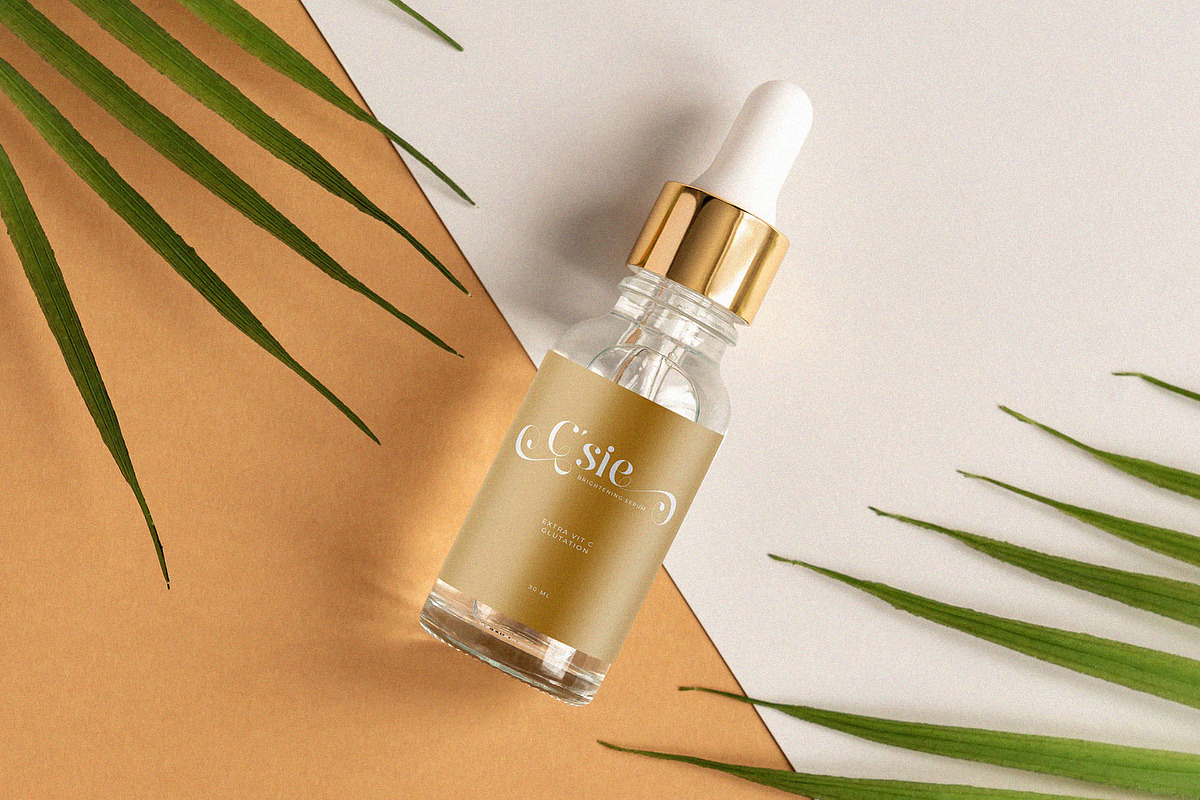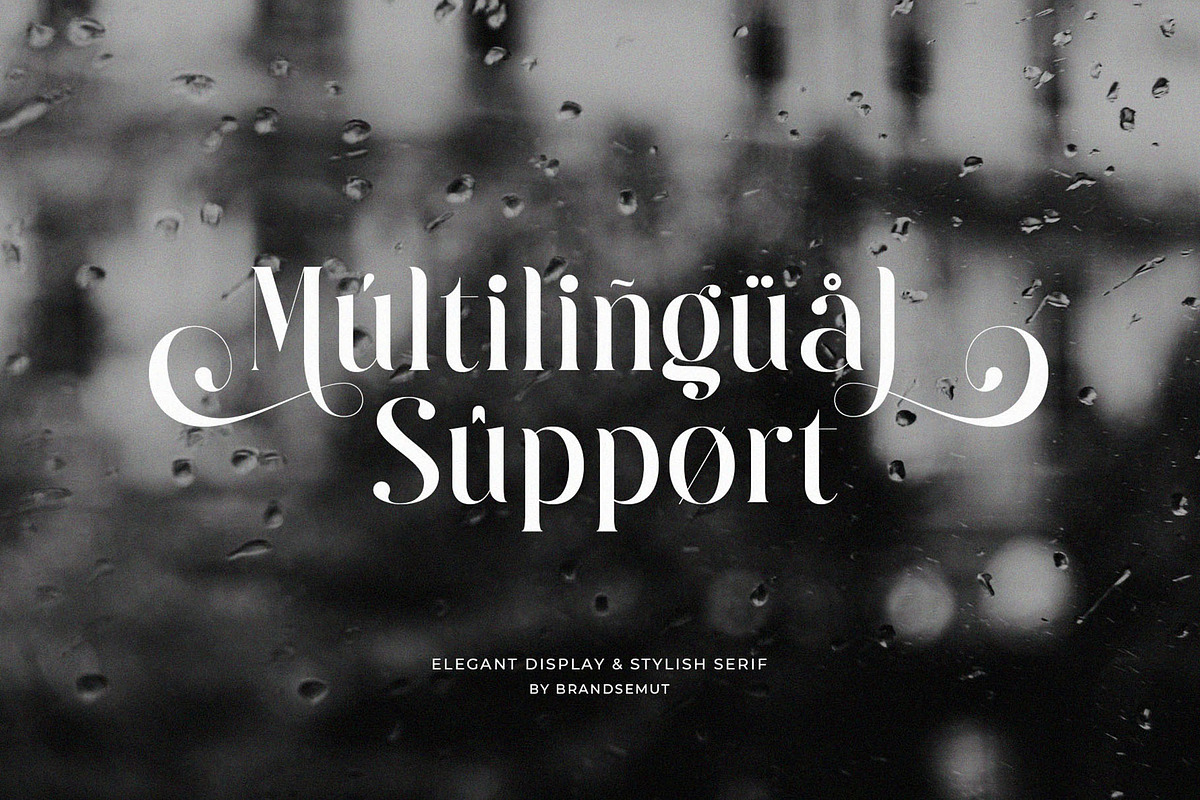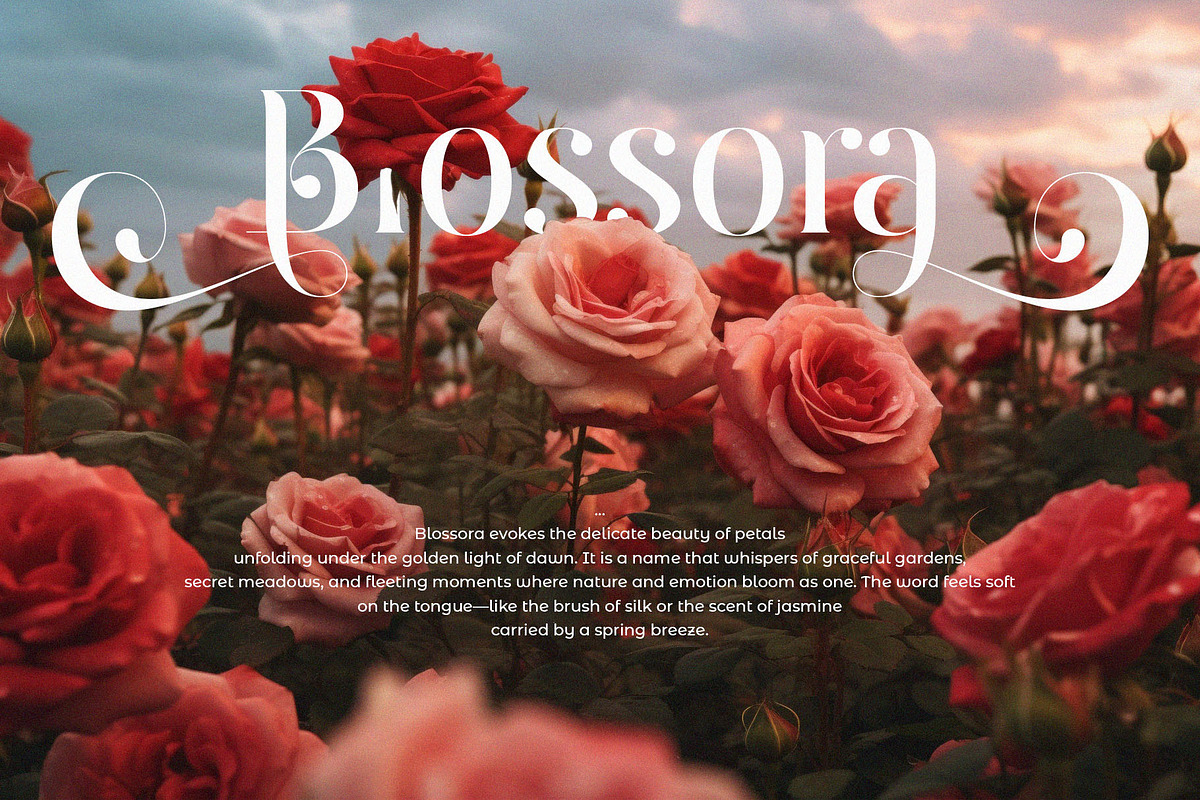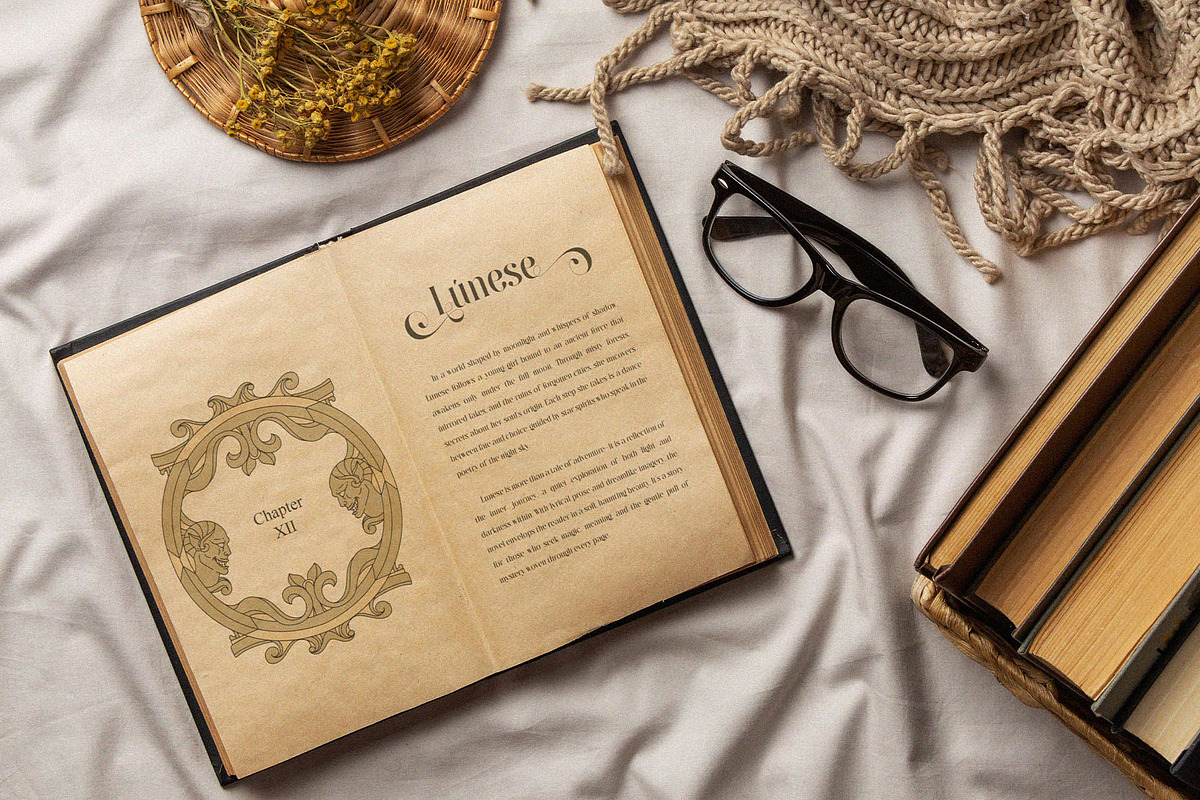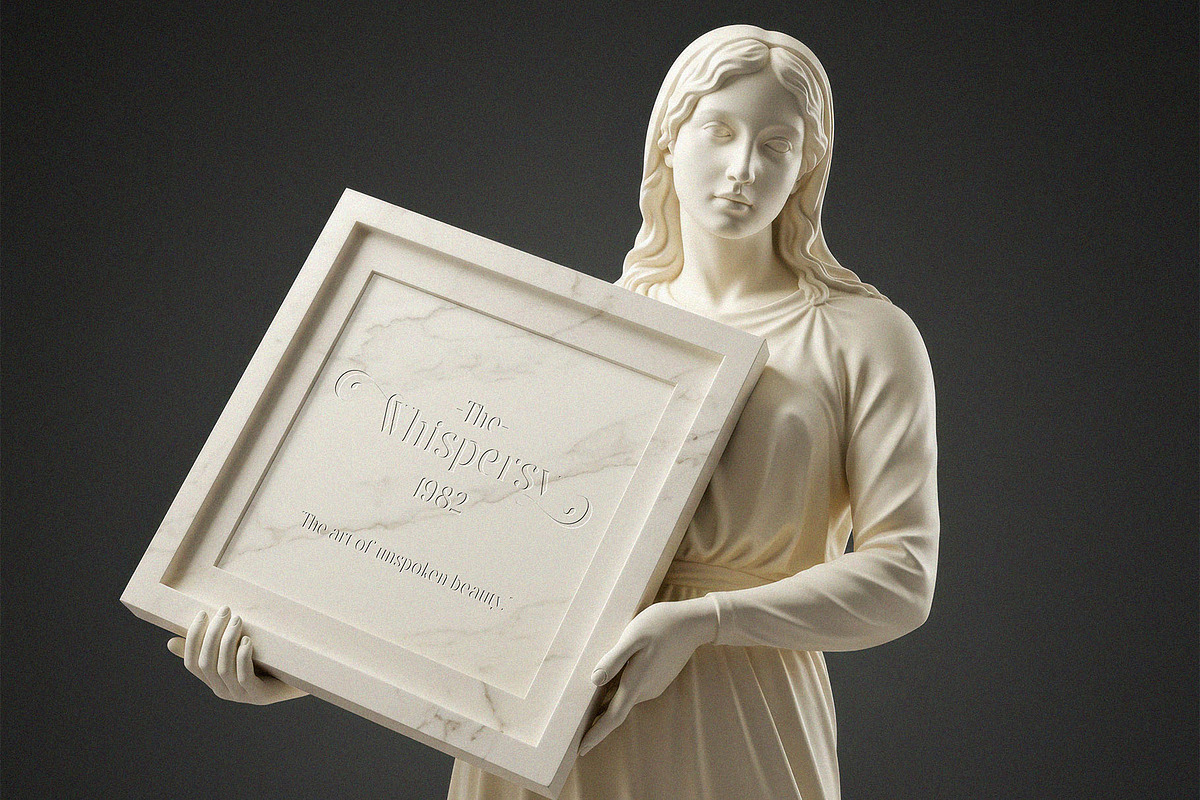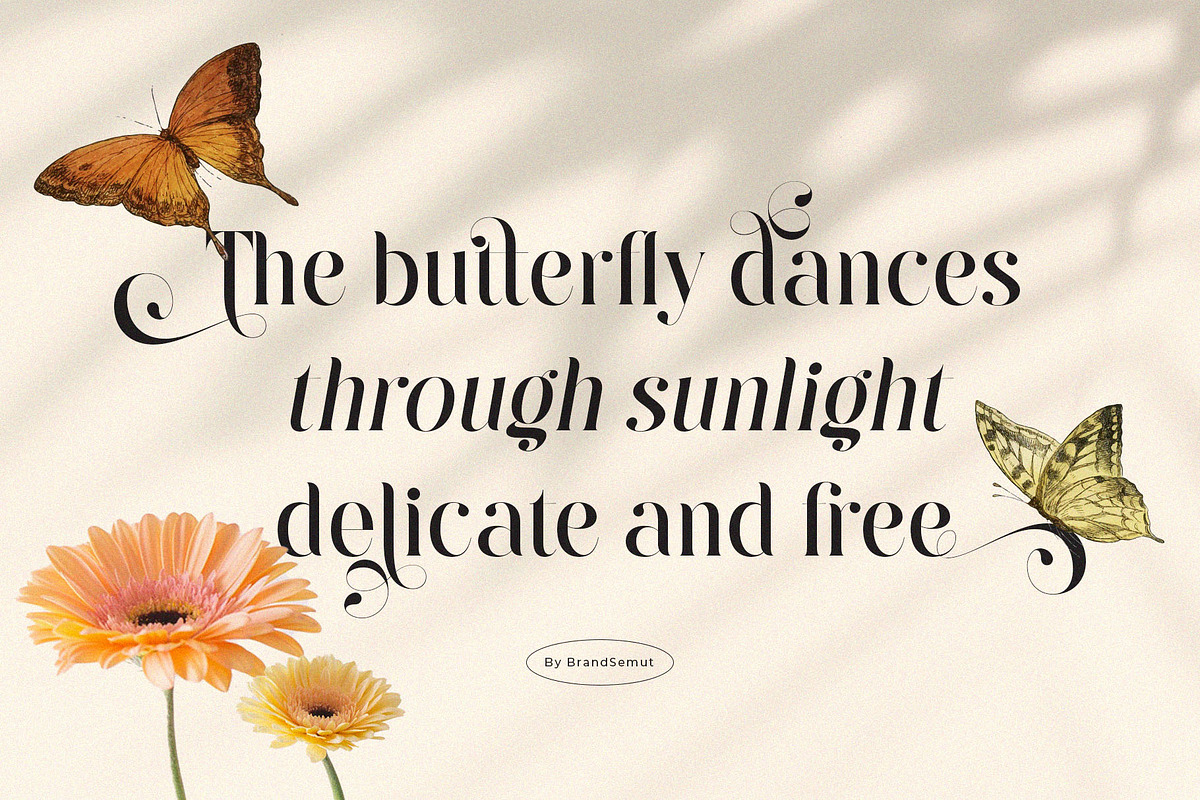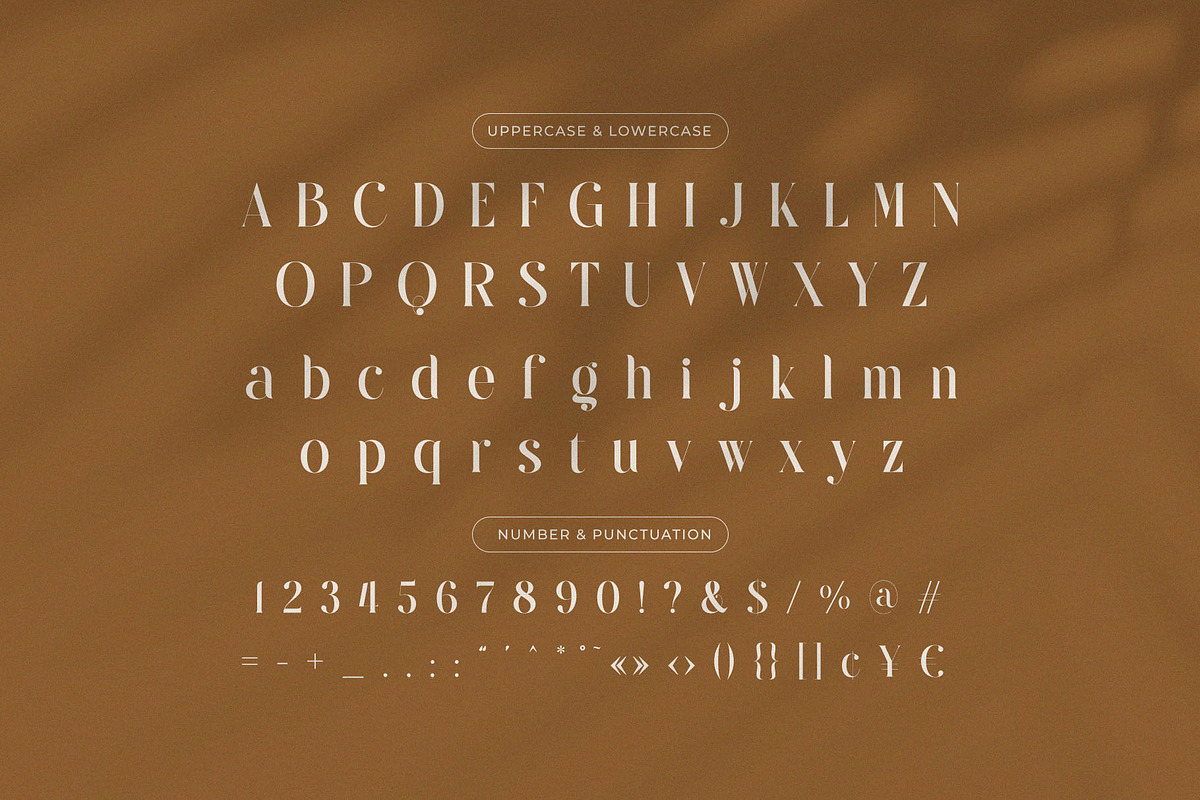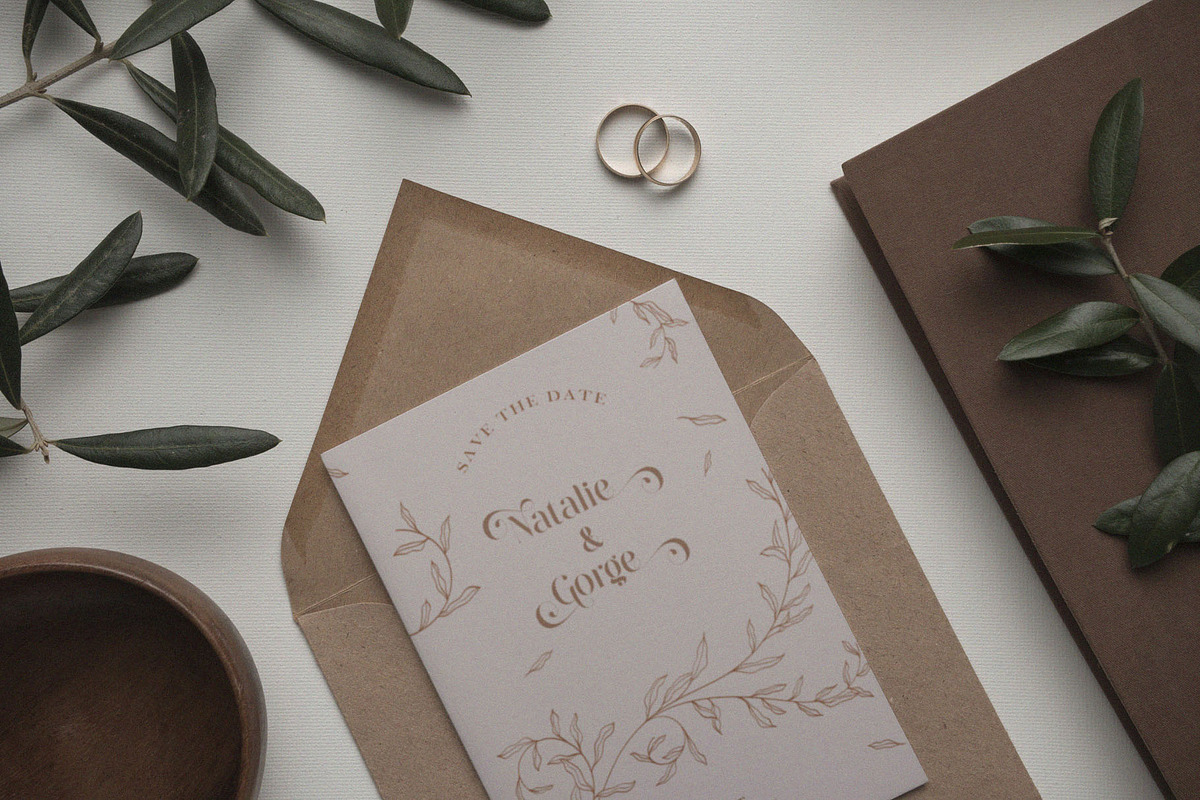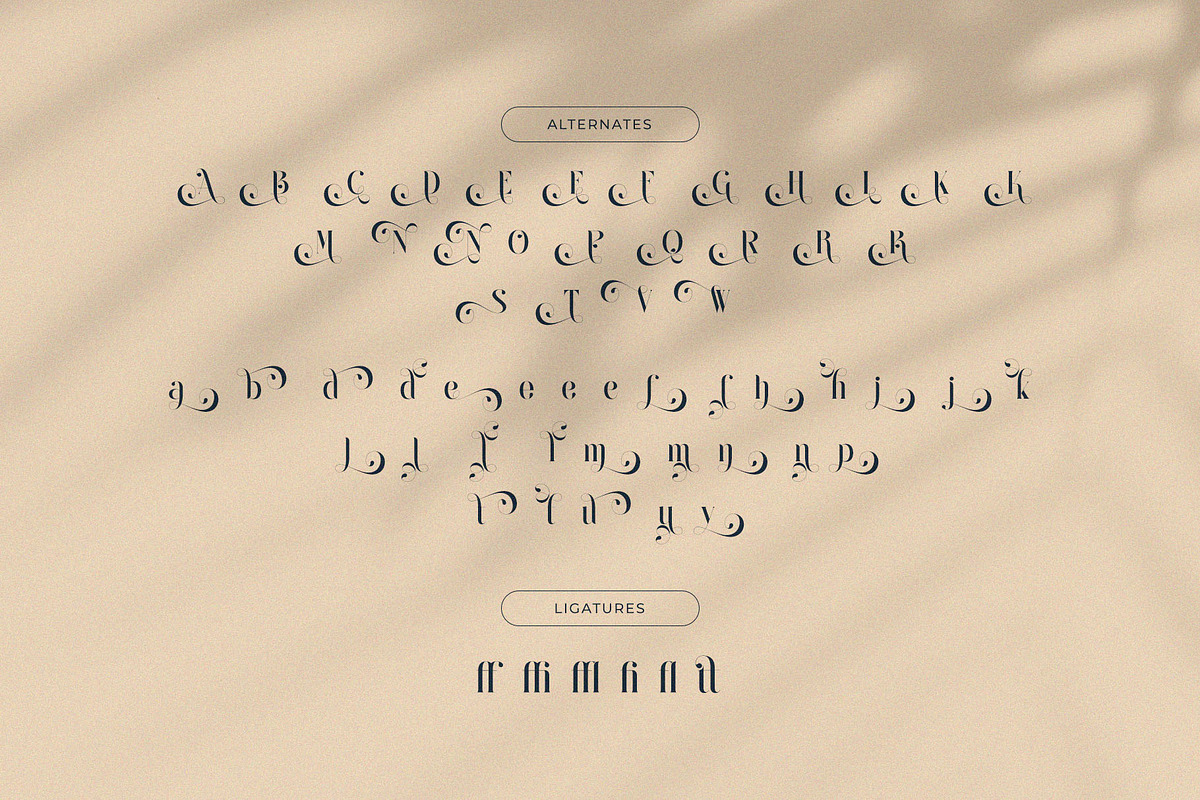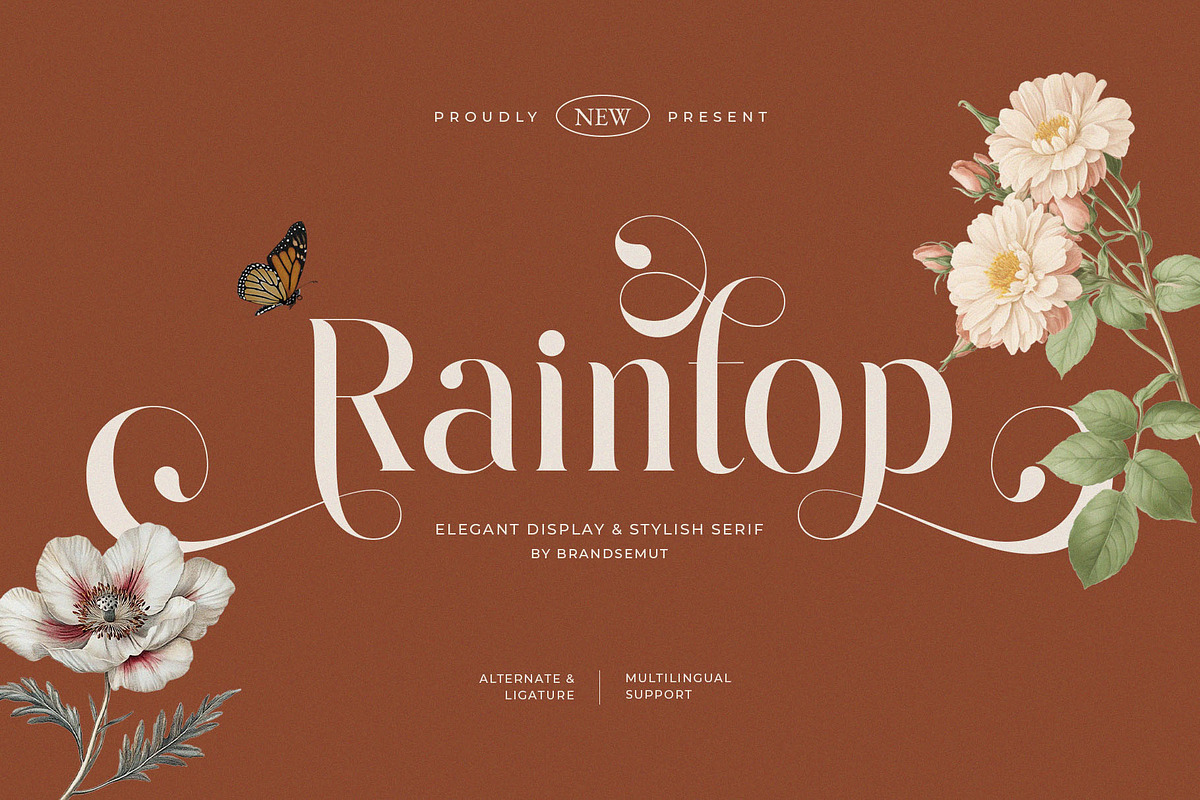
Raintop – Elegant & Stylish Serif
Raintop – Elegant & Stylish Serif Font
Raintop is an elegant display serif font designed with a stylish and luxurious touch. Featuring graceful letterforms, artistic alternates, and creative ligatures, this typeface brings sophistication and timeless charm to any design project. Inspired by vintage aesthetics and refined with modern details, Raintop is perfect for designers who want to achieve a high-end, classy look.
This font is versatile and works beautifully across print and digital media—making it an ideal choice for branding, logos, editorial layouts, packaging, and wedding invitations. With multilingual support and stylish alternates, Raintop gives you flexibility and creative freedom to design with elegance.
- Complete uppercase & lowercase letters
- Numerals, punctuation, and multilingual support
- Beautiful alternates and ligatures for unique typography
- Luxury Branding & Logo Design – Fashion, beauty, jewelry, and premium businesses.
- Editorial & Print Projects – Magazines, book covers, advertising, and headlines.
- Packaging Design – Cosmetics, food, beverages, and luxury products.
- Wedding & Event Stationery – Invitations, menus, place cards, and elegant signage.
- Digital & Social Media – Stylish website headers, Instagram posts, and marketing content.
🌟 Why Choose Raintop?
- Elegant & Stylish Design – A refined serif font with artistic details.
- Versatile & Creative – Perfect for both vintage and modern projects.
- Professional Quality – Carefully crafted for readability, balance, and beauty.
Raintop is more than just a font—it’s a timeless piece of design that adds sophistication, elegance, and uniqueness to every project.